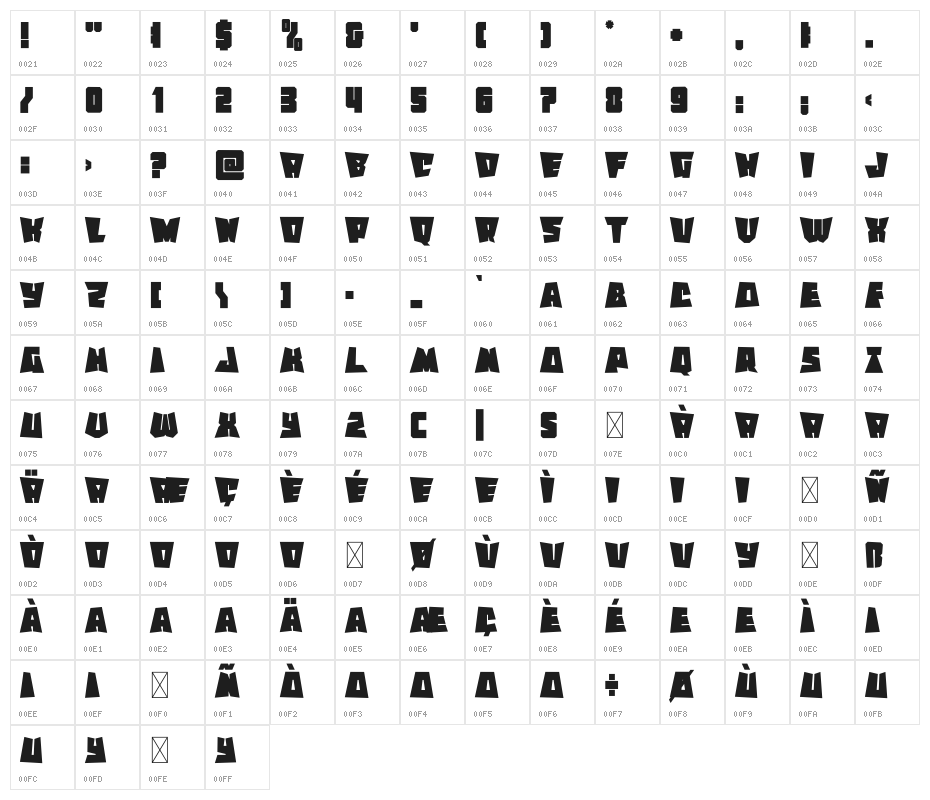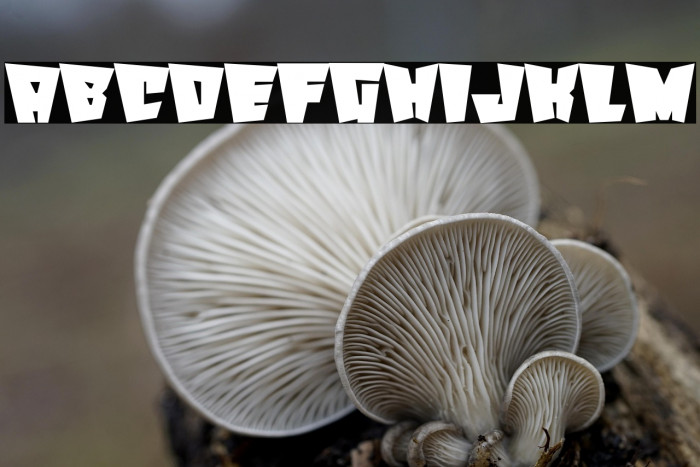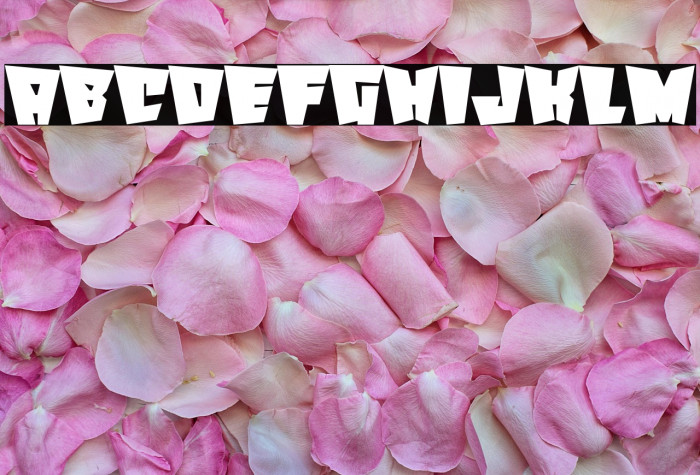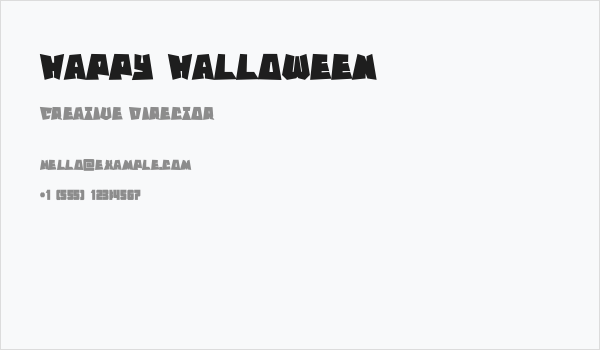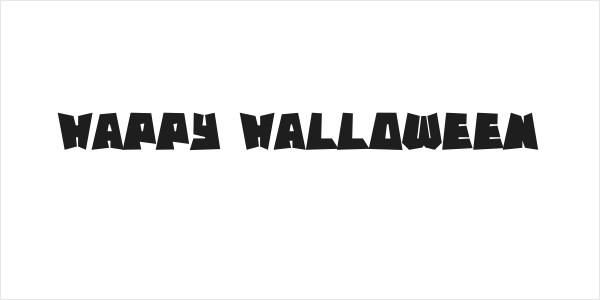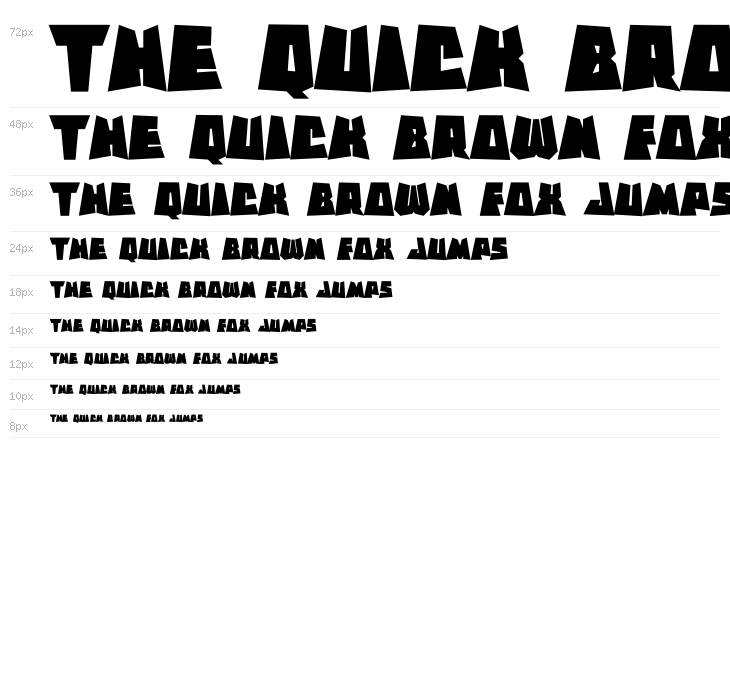
Happy Halloween Font
Happy Halloween Description
This font features a bold, angular design with a distinctly spooky and playful aesthetic, perfect for Halloween-themed projects. The letters are sharply cut with irregular edges, giving them a jagged appearance that enhances their eerie charm. The uppercase and lowercase characters maintain a consistent style, while the numbers and special characters complement the overall theme. The font's boldness and unique shapes make it stand out, ideal for capturing attention in decorative contexts.
| Proposed Projects | Ideal for Halloween posters, party invitations, themed events, and decorative signage. |